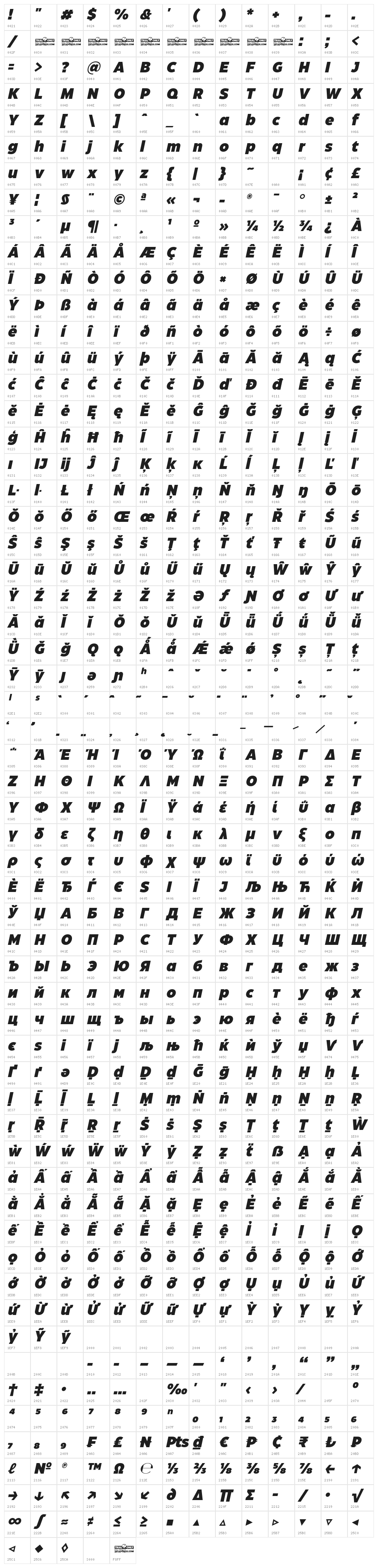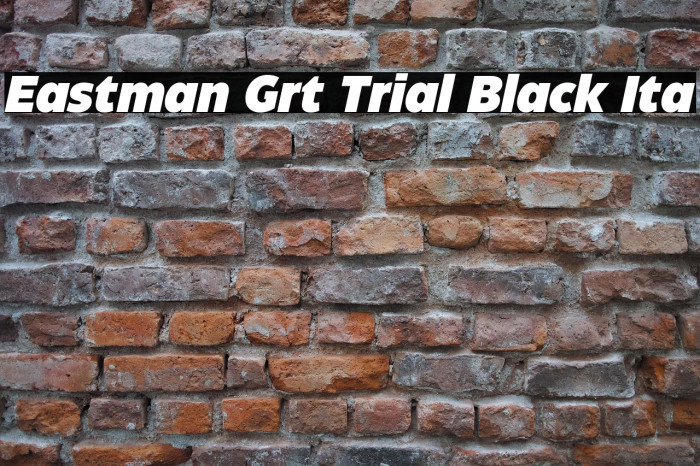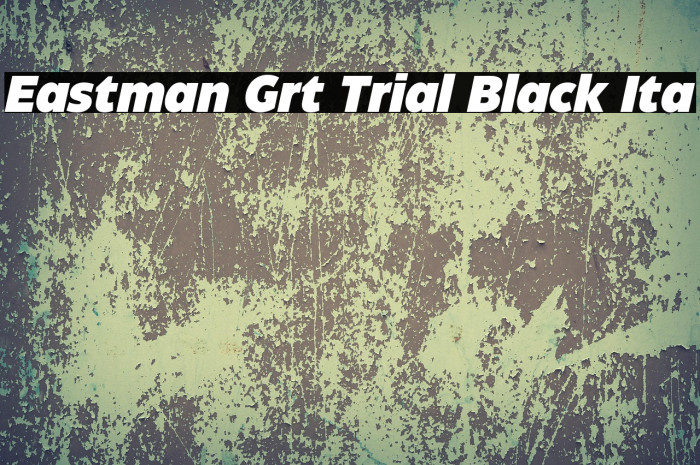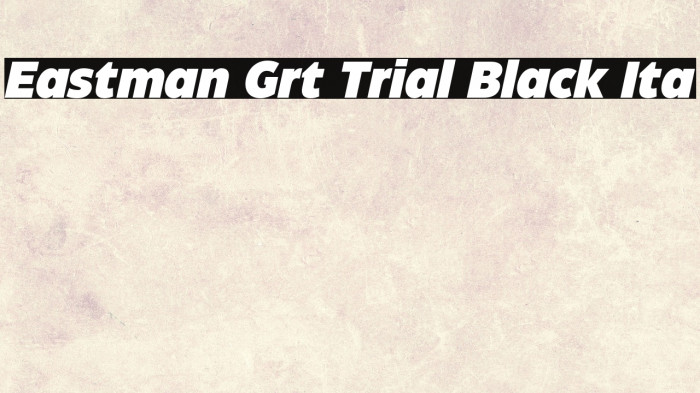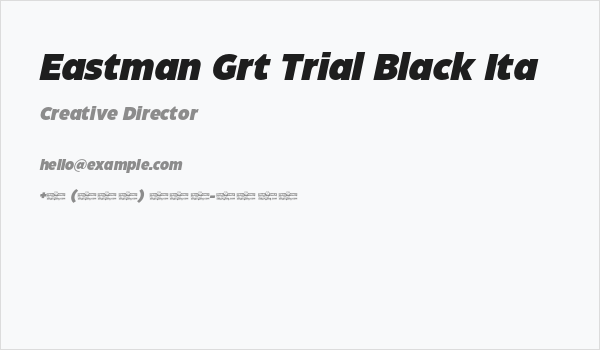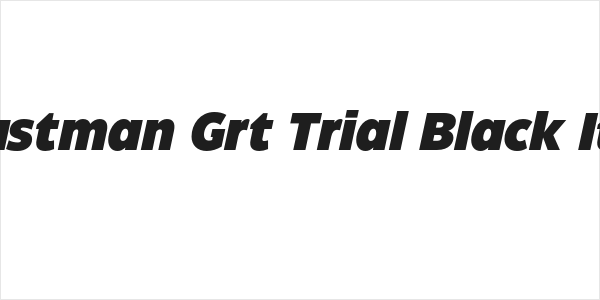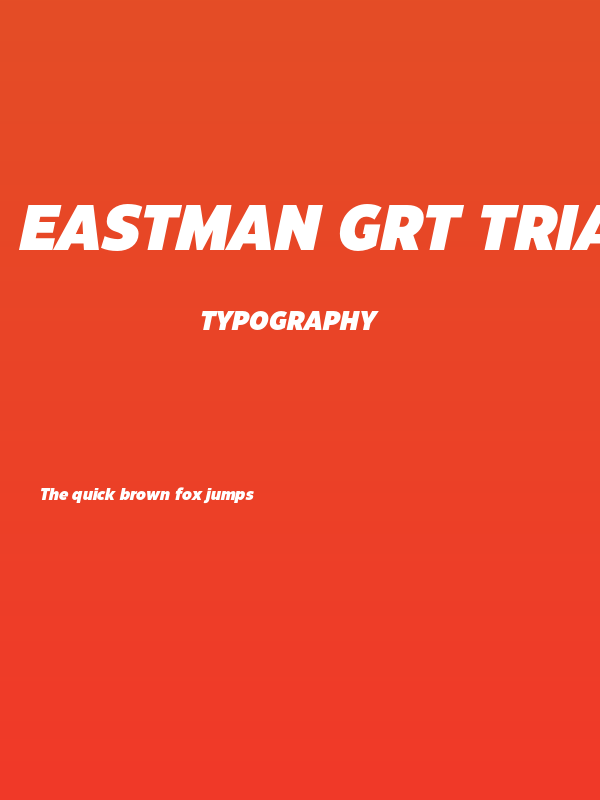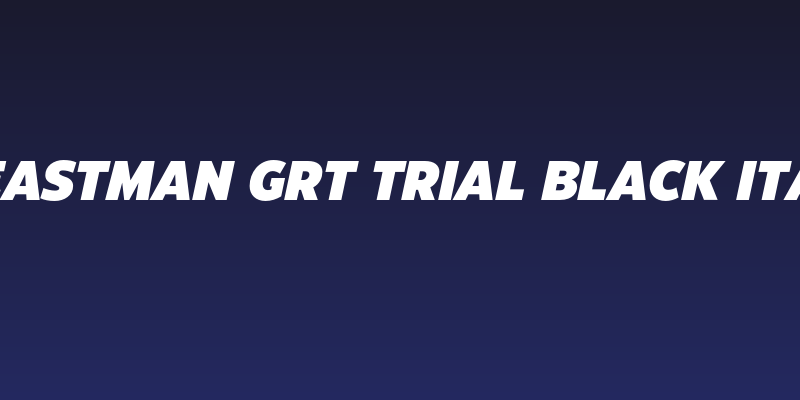
Eastman Grt Trial Black Ita Font
Eastman Grt Trial Black Ita Description
This font features a bold and dynamic style with strong, thick strokes that convey a sense of power and impact. The italicized form adds a sense of movement and urgency, making it suitable for attention-grabbing headlines. The uppercase and lowercase letters are well-proportioned, maintaining readability despite the boldness. The numbers and special characters are consistent with the overall design, ensuring a cohesive look across different uses. The font's modern aesthetic is complemented by its slightly condensed width, which allows for efficient use of space without compromising legibility.